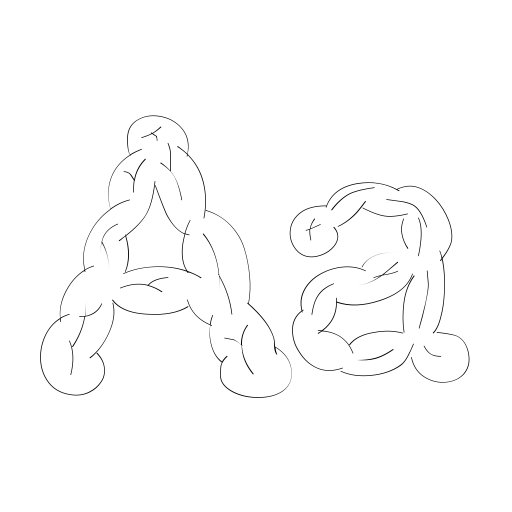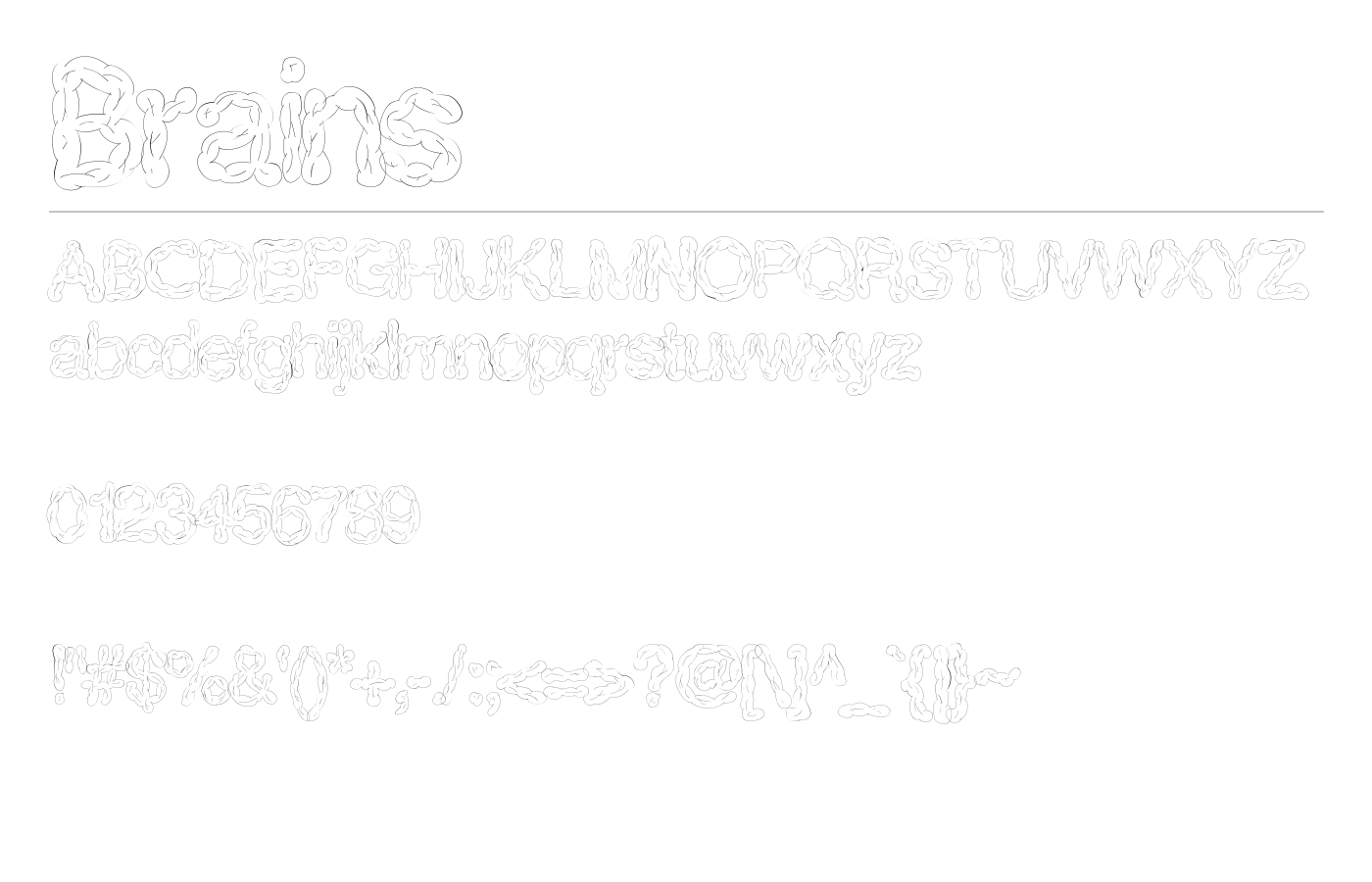
Brains Font is a playful and creative display typeface that mimics the twisted, organic shapes of brain matter, making it perfect for fun, quirky designs. Its unique and quirky style works well for Halloween themes, psychology-related projects, or any design needing a bold, imaginative touch that stands out in headlines or logos.
Brains Font